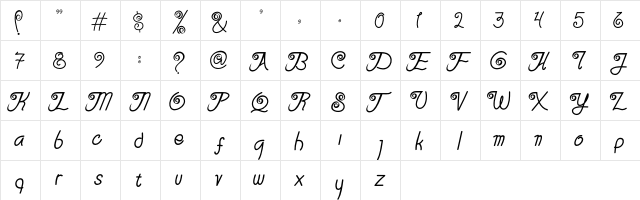
Serasa Regular
Design Context for Serasa Typeface
Serasa is a composed and adaptable typeface that performs quietly and consistently across a wide range of design contexts.